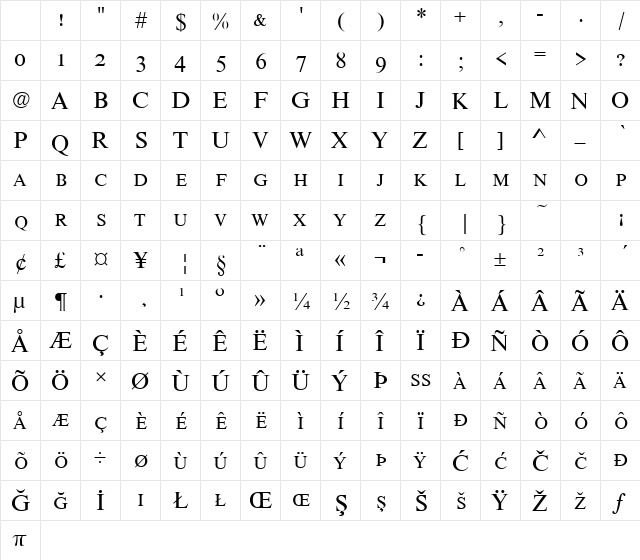
Complete Nimbus Roman Becker No9SCT Regular glyph index. Displaying only characters natively supported by Nimbus Roman Becker No9SCT Regular font.
Nimbus Roman Becker No9SCT is a composed and adaptable typeface that performs quietly and consistently across a wide range of design contexts.